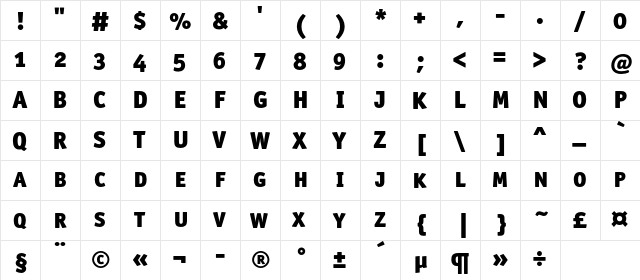
OfficinaSansBlackSCC Regular
Design Context for OfficinaSansBlackSCC Typeface
OfficinaSansBlackSCC offers clean, dependable letterforms without strong stylistic allegiance, making it a practical choice for designers who need flexibility.
Pro Tip: Use OfficinaSansBlackSCC in both headline and body roles to test its range before committing to a single application.